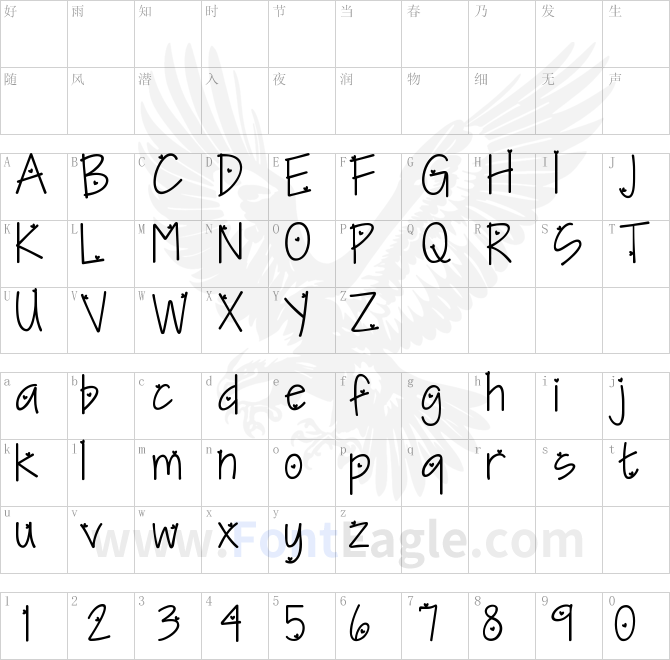
- Font name:KG I Need A Heart Font
KG-I-Need-A-Heart-Font is a great font, widely used in graphic design, single-page menu design, poster design and other fields, and is deeply loved by designers.KG-I-Need-A-Heart-Font download.